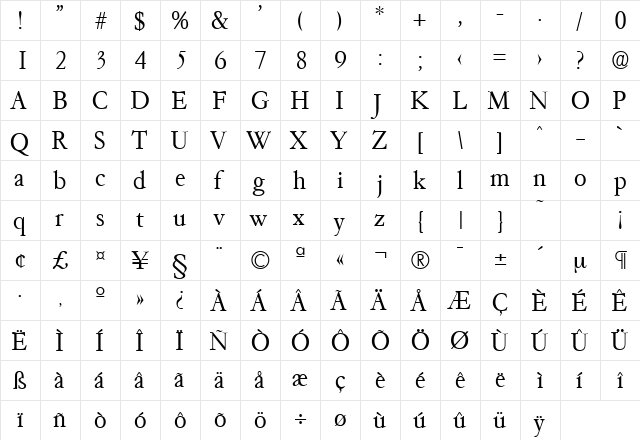
Garamond-Serial-Light Regular
Design Context for Garamond-Serial-Light Typeface
Garamond-Serial-Light takes a measured approach to typography — its balanced proportions and neutral character make it a reliable workhorse for both digital and print work. The delicate stroke weight brings airiness and refinement to layouts.